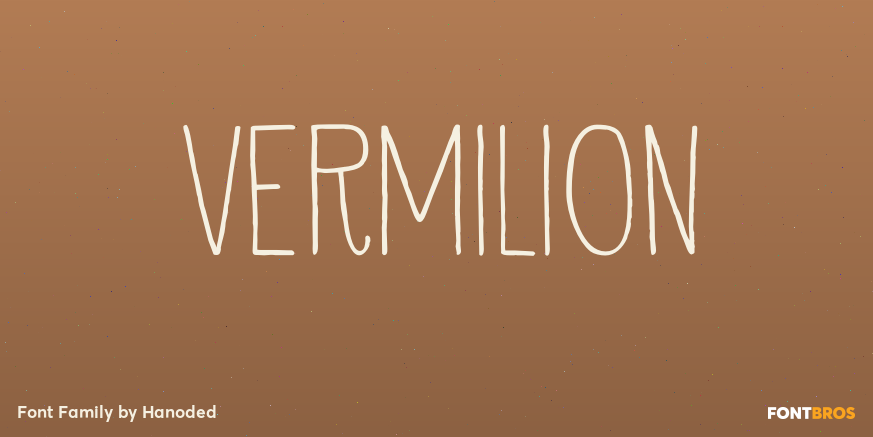
Vermilion
About Vermilion
Vermilion is one of those colors that are neither/nor. It\’s an ancient hue, in between red and orange and I kind of like the name. Vermilion font is a hand written, narrow and tall typeface which comes with extensive language support.